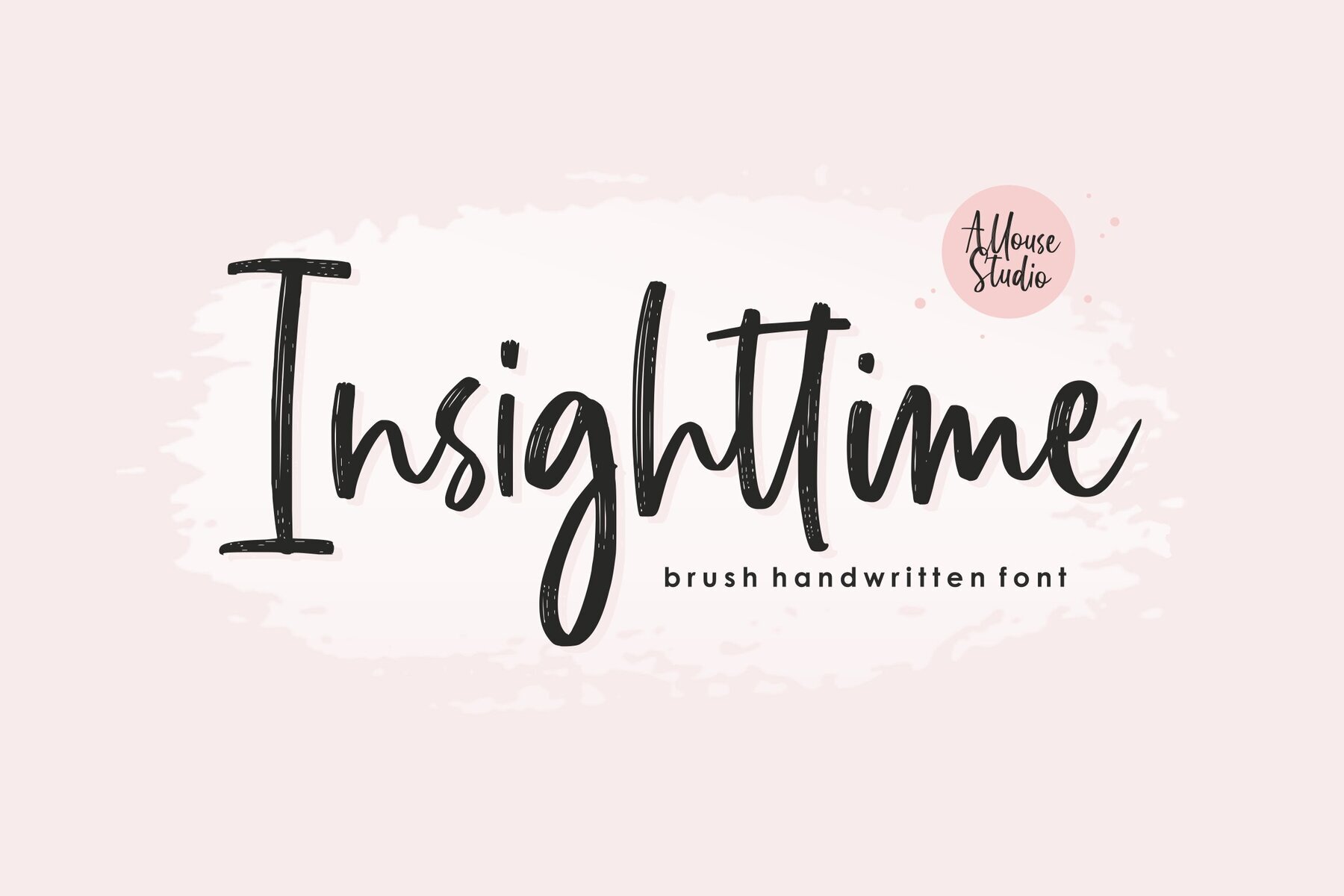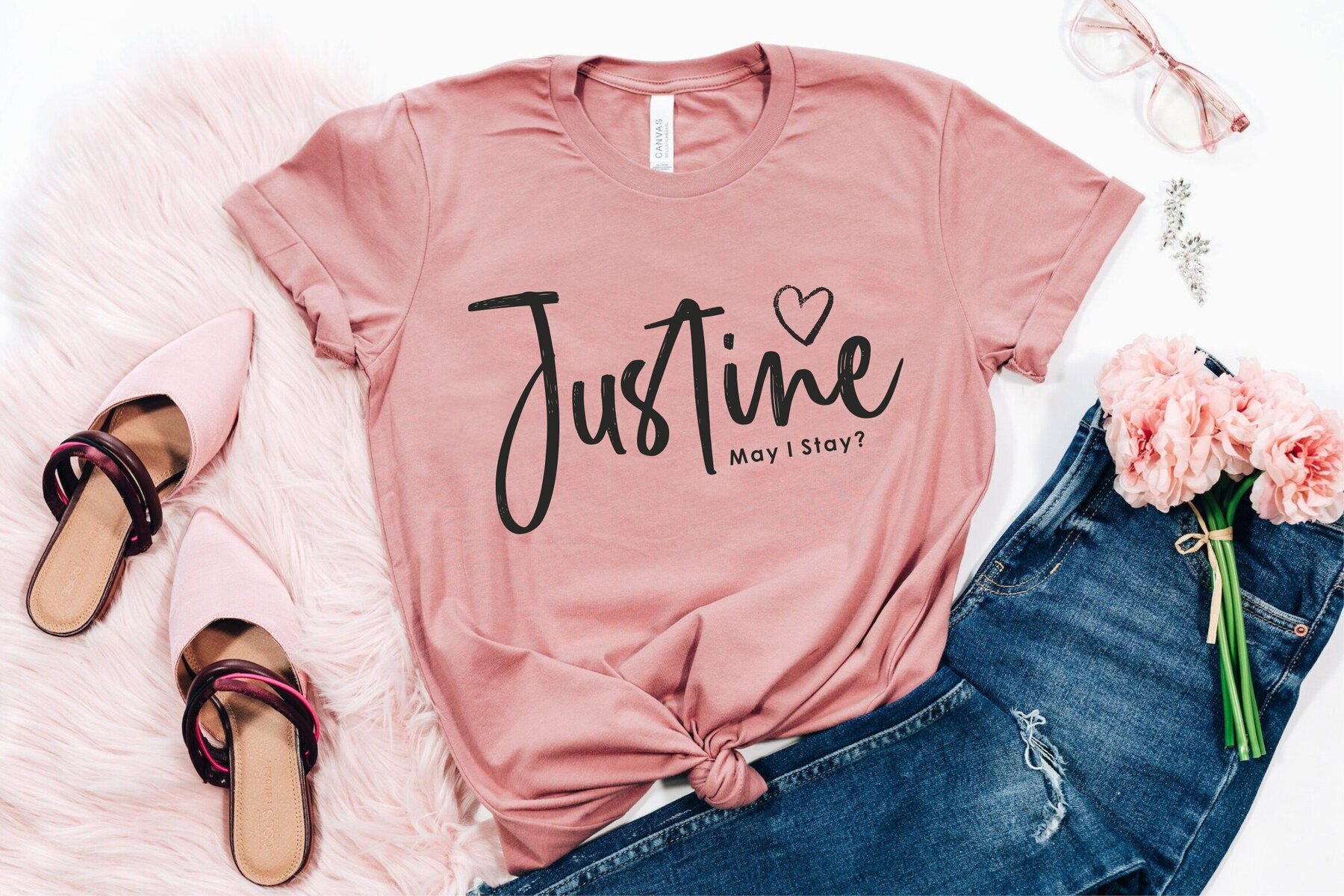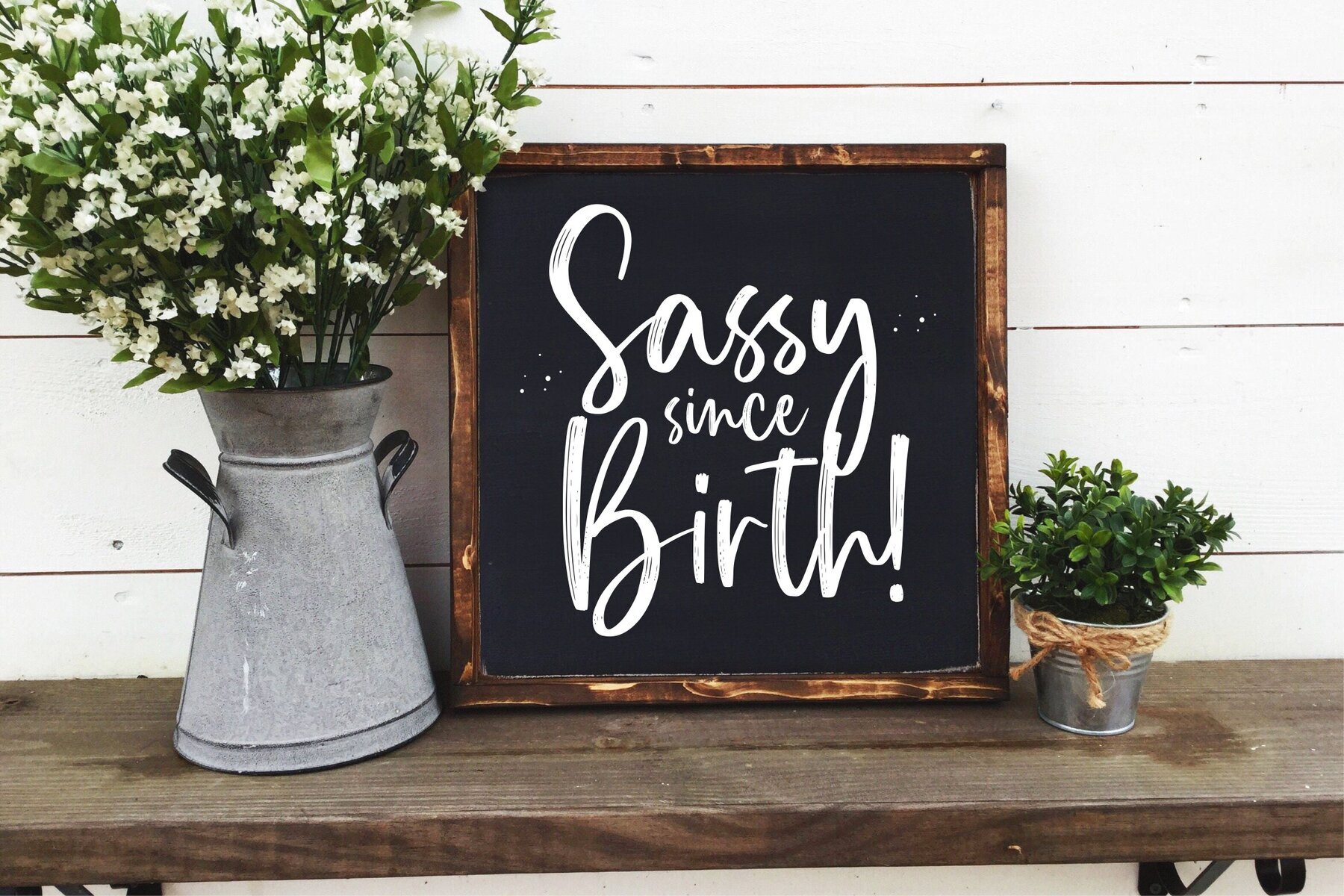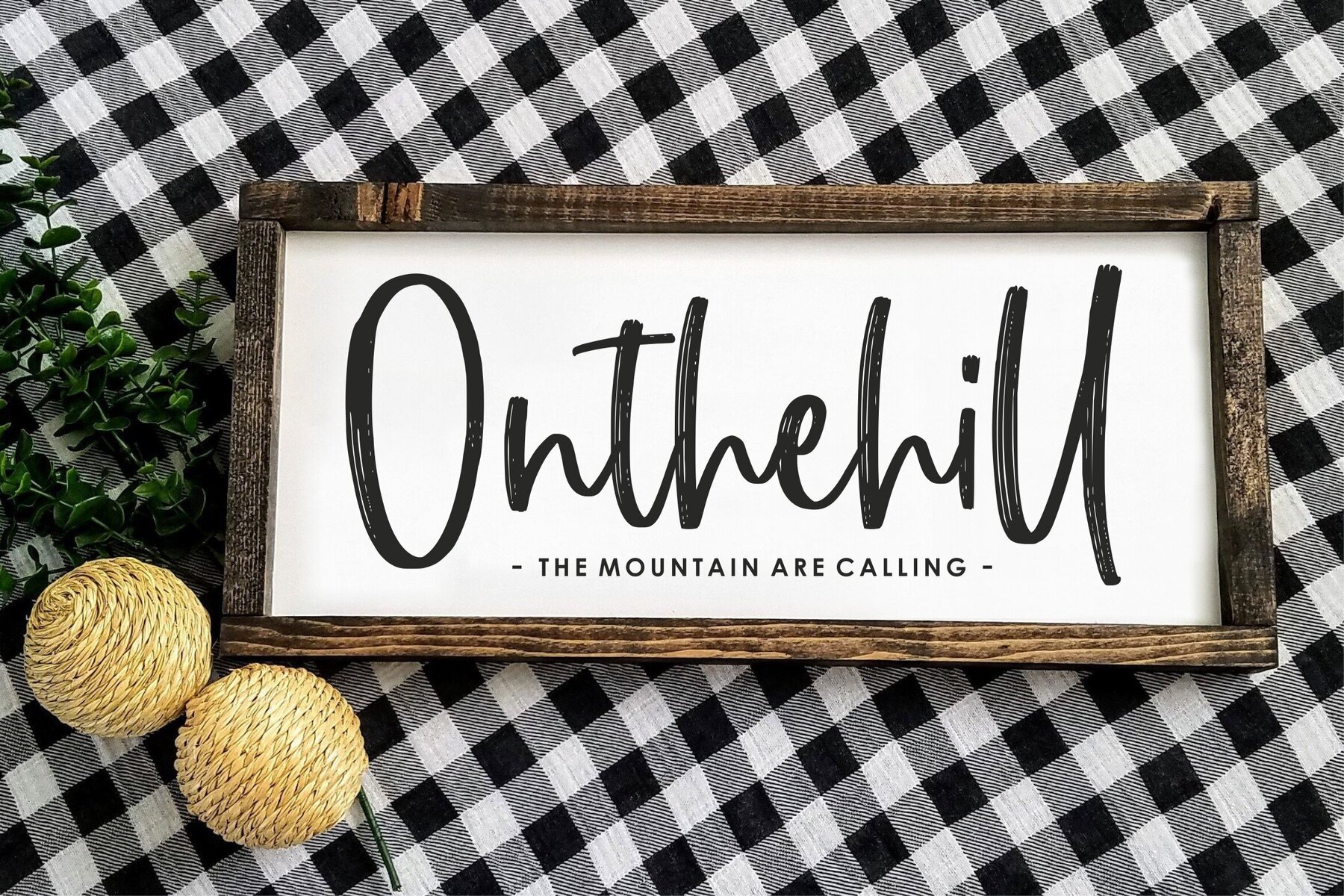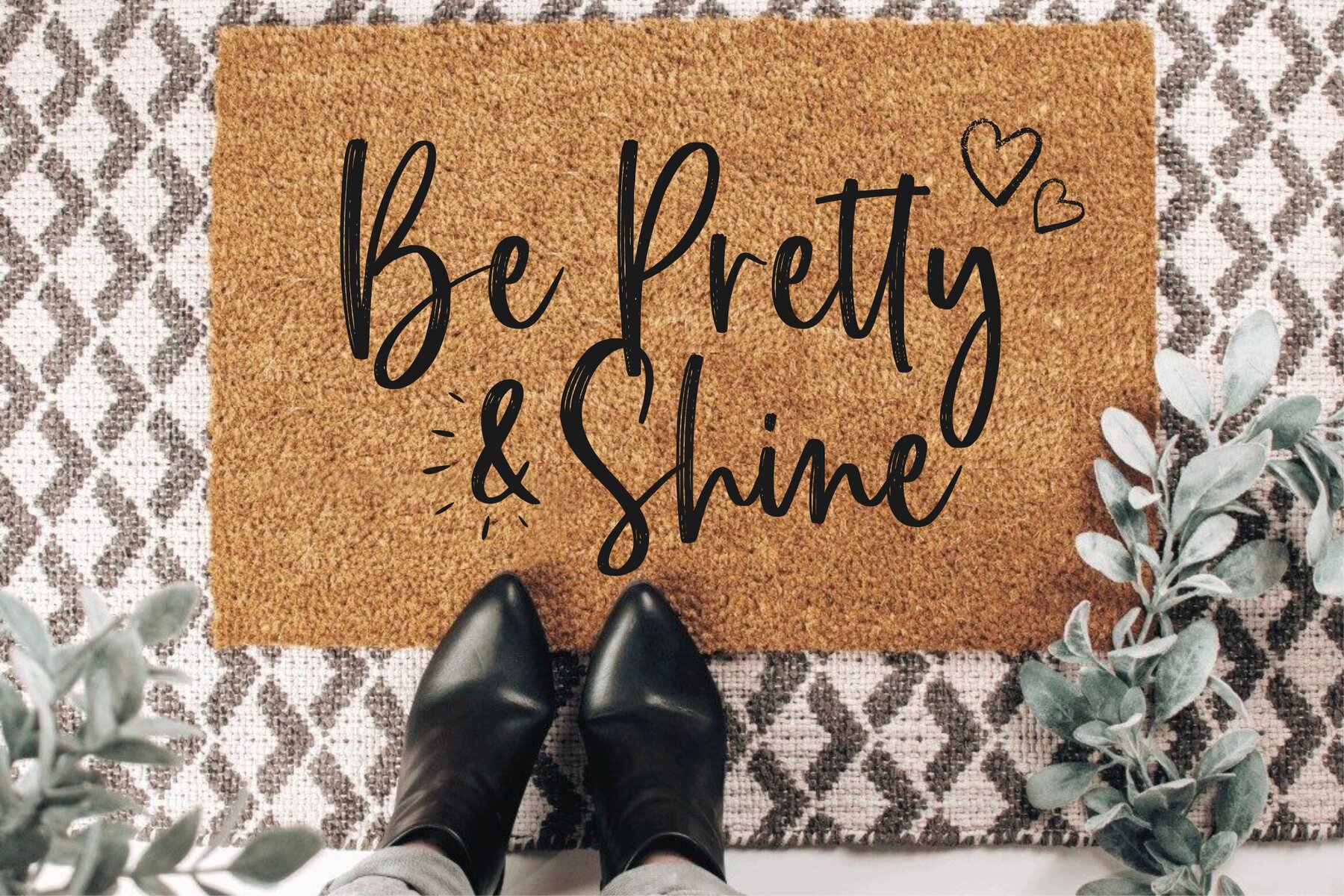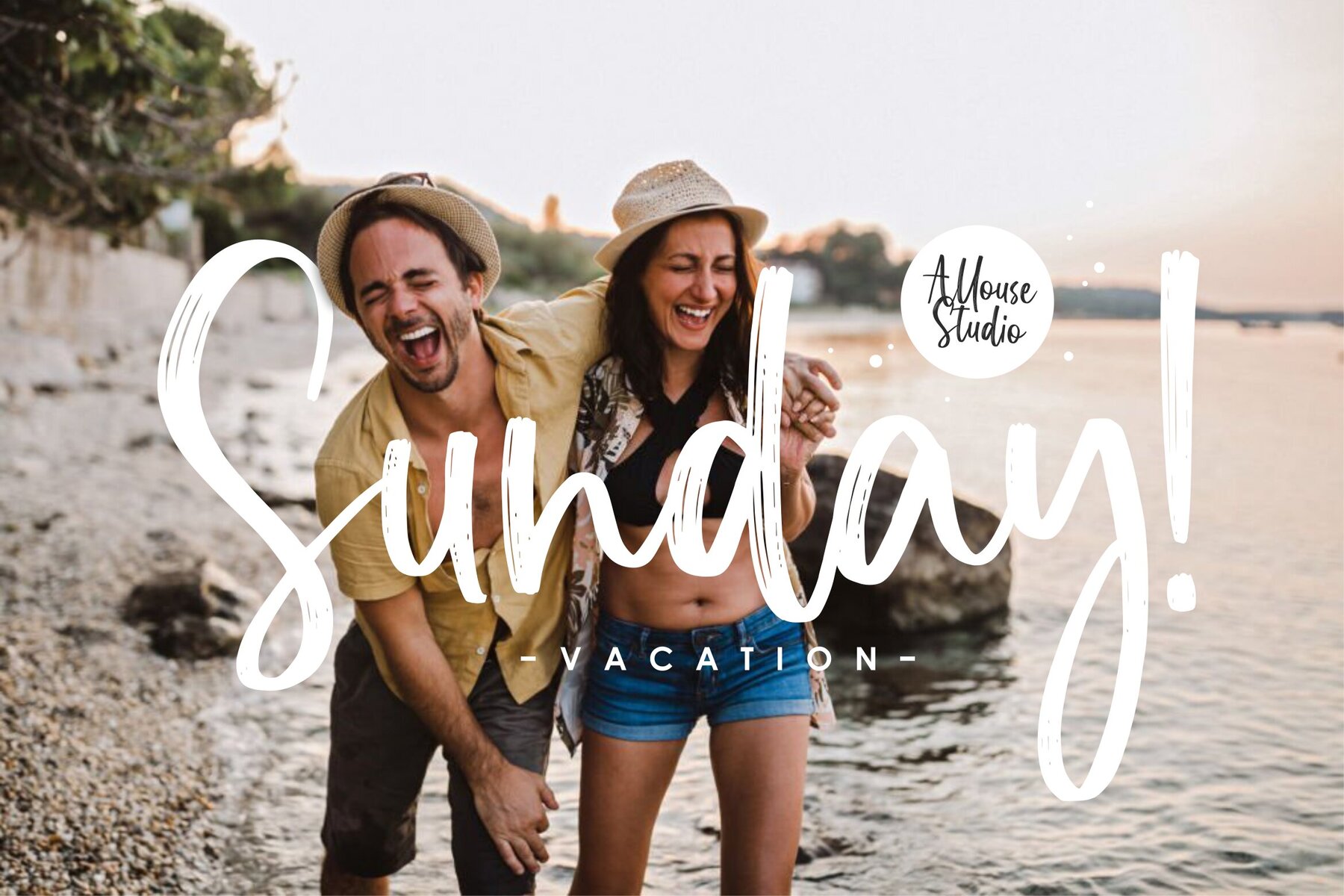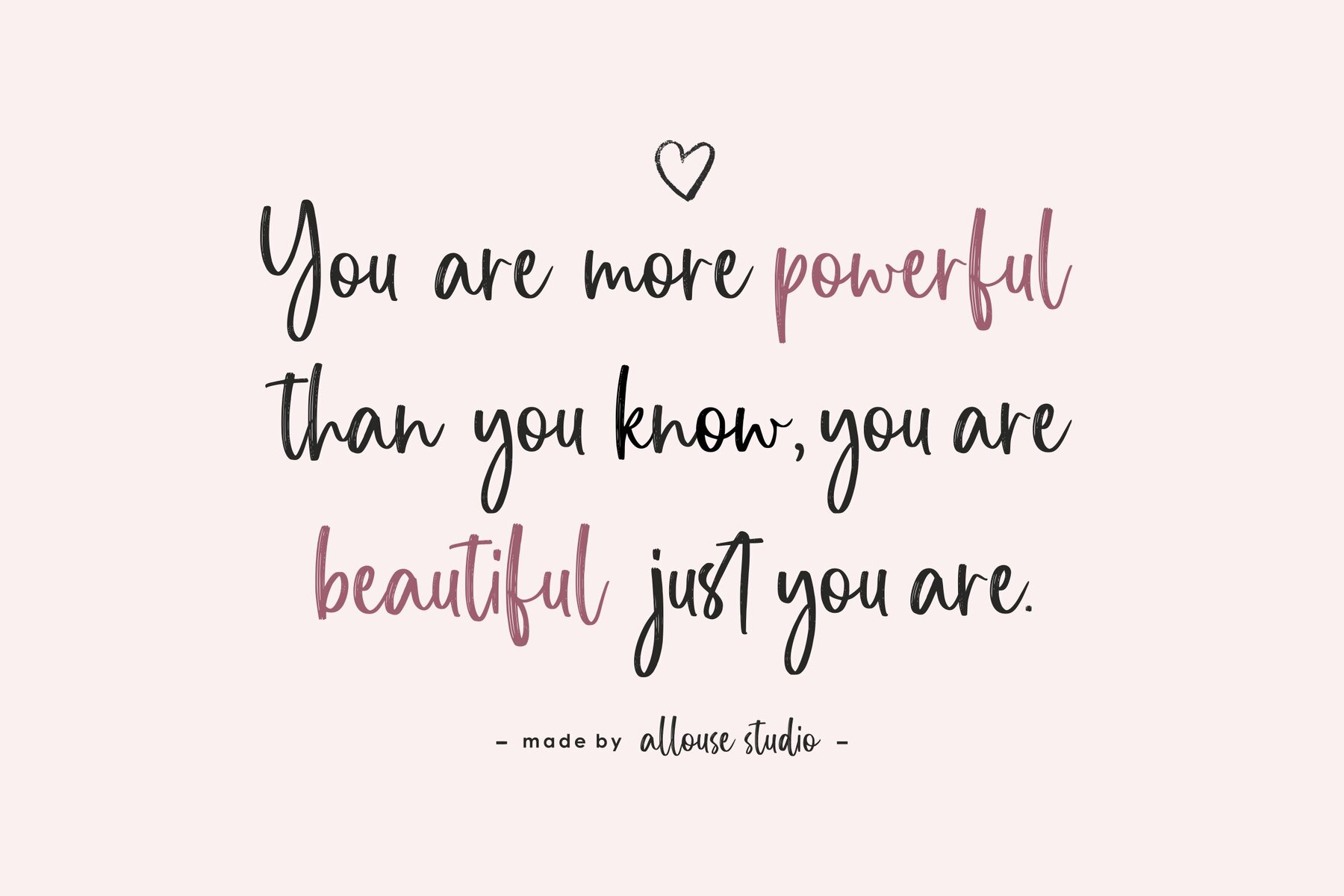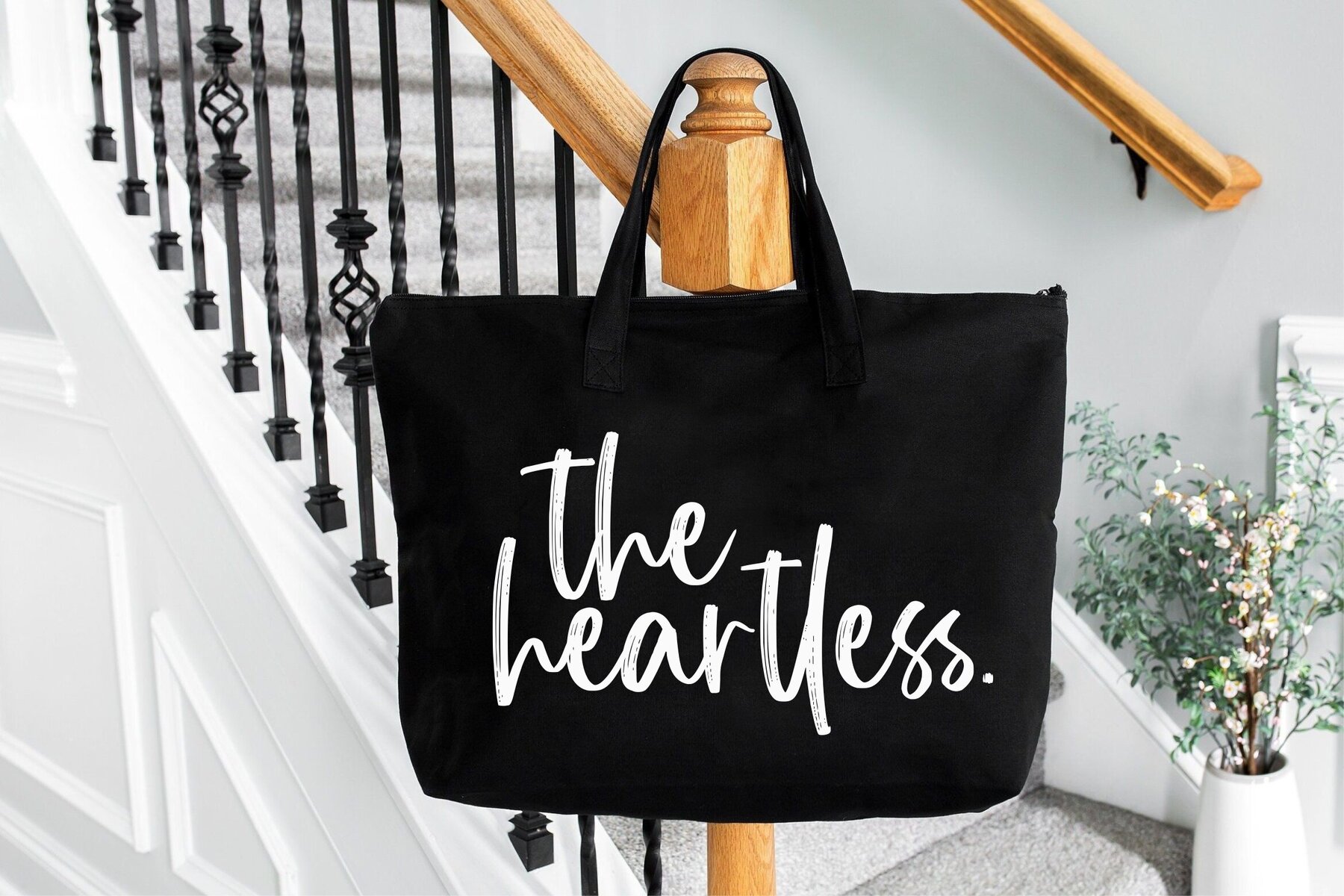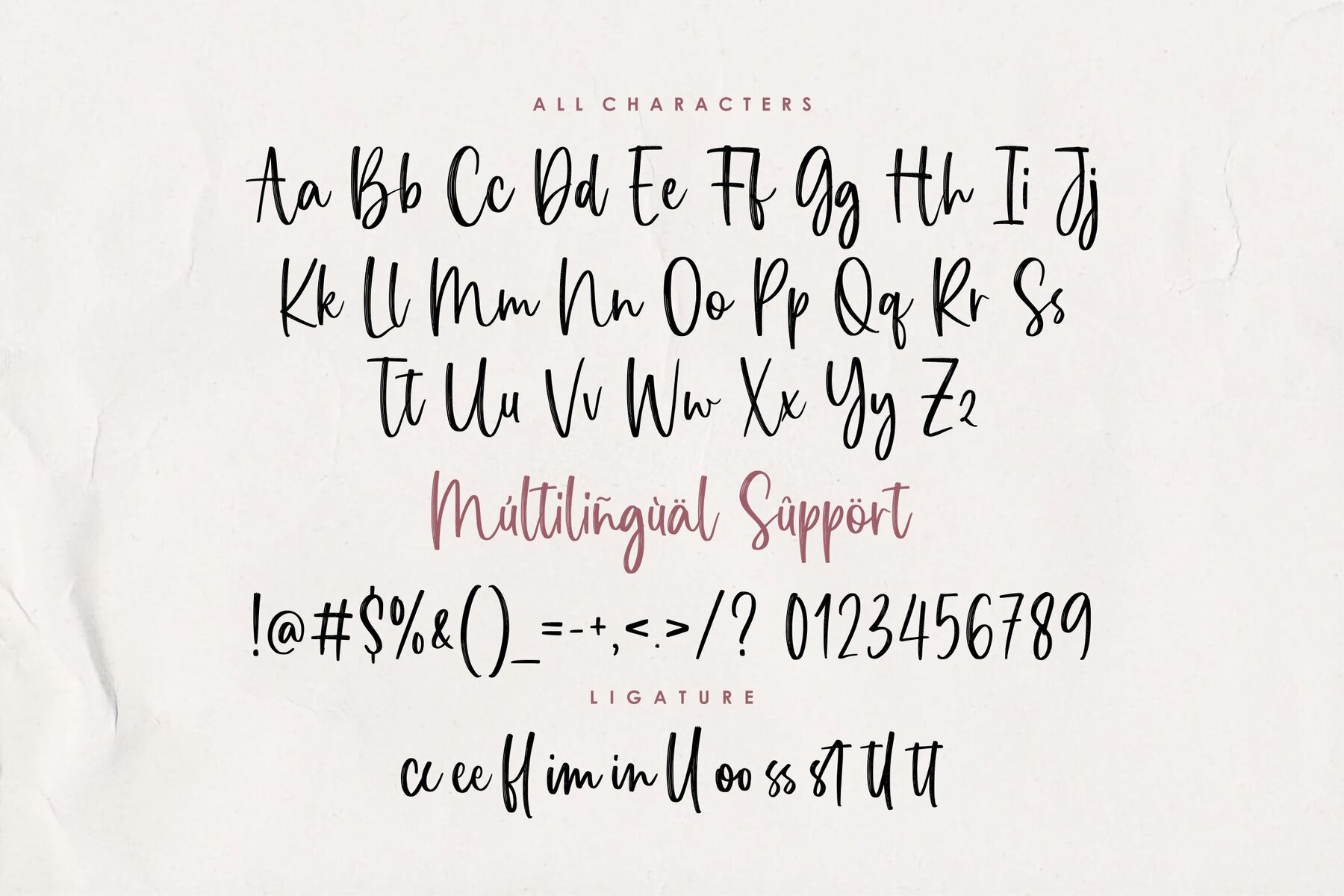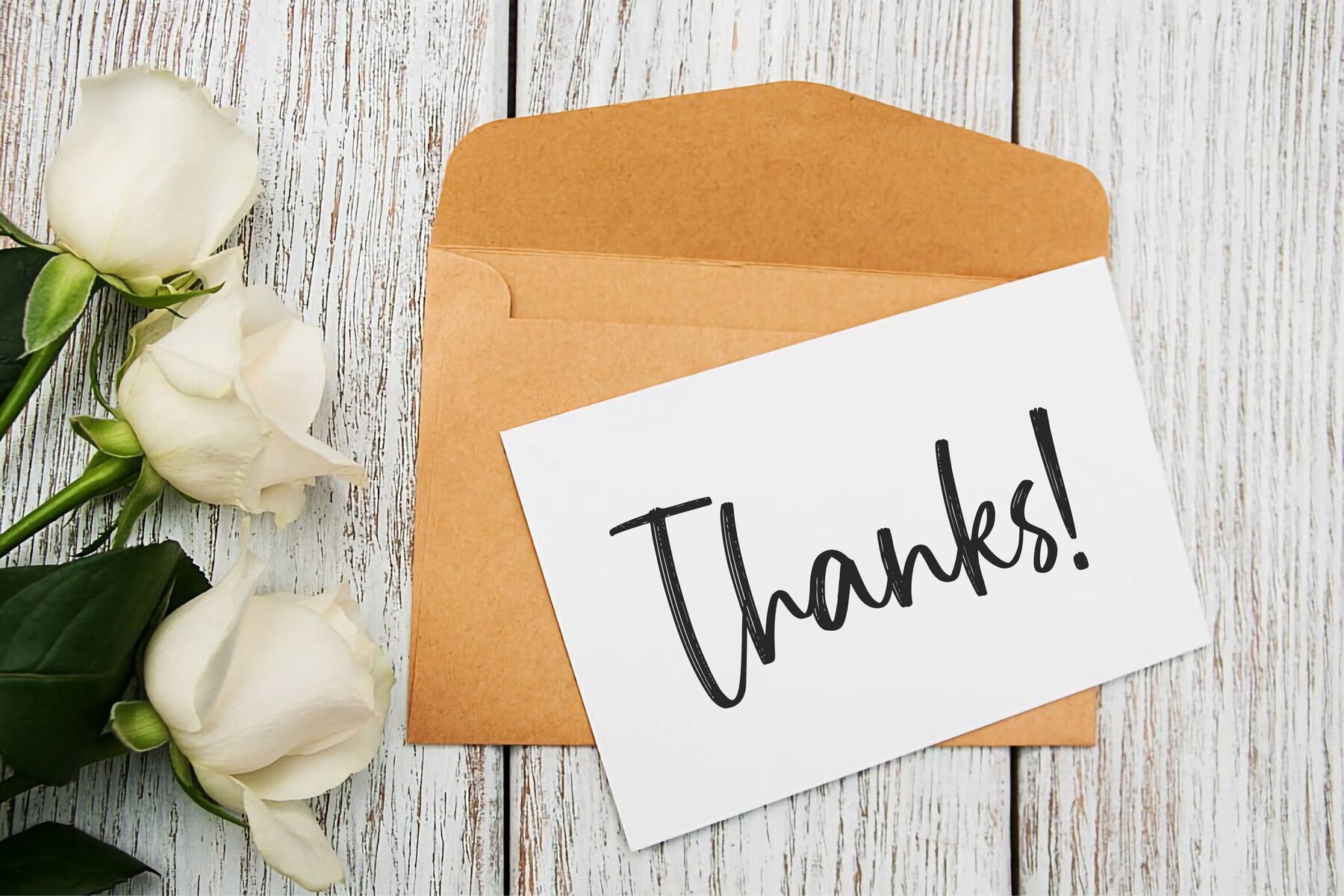
Insighttime Font
Insighttime by Allouse.Studio is a versatile script font ideal for a wide range of design projects. Its elegant strokes make it suitable for adding a personal touch to various applications. Use Insighttime to convey words beautifully above any background, adding a touch of elegance and personalization to your designs.Insighttime: Elegant Script for Diverse Design Needs